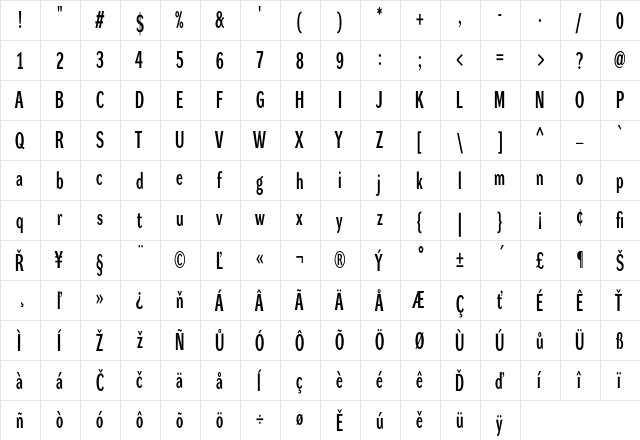
Dynamo LXC Regular
Design Context for Dynamo LXC Typeface
Dynamo LXC is a composed and adaptable typeface that performs quietly and consistently across a wide range of design contexts.